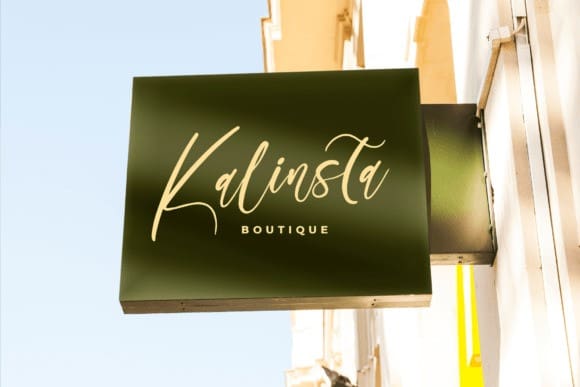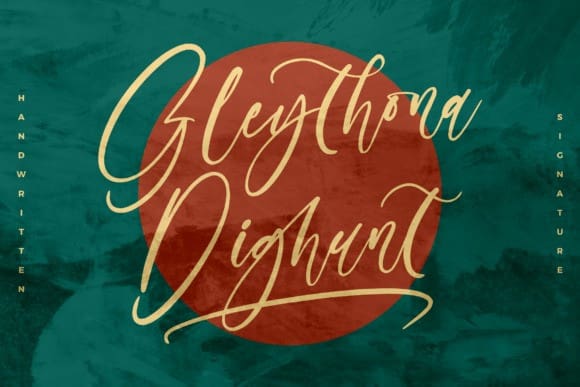
Gleythona Dighunt Font
Gleythona Dighunt Font is a magical script font carefully created with a touch of elegance. Whether you’re looking for fonts for Instagram or calligraphy scripts for DIY projects, this font will turn any creative idea into a true piece of art!